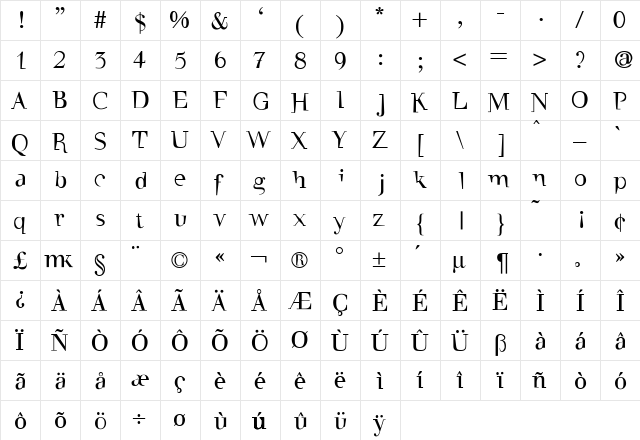
WalbaumTorsoThree Regular
Design Context for WalbaumTorsoThree Typeface
WalbaumTorsoThree is a composed and adaptable typeface that performs quietly and consistently across a wide range of design contexts.